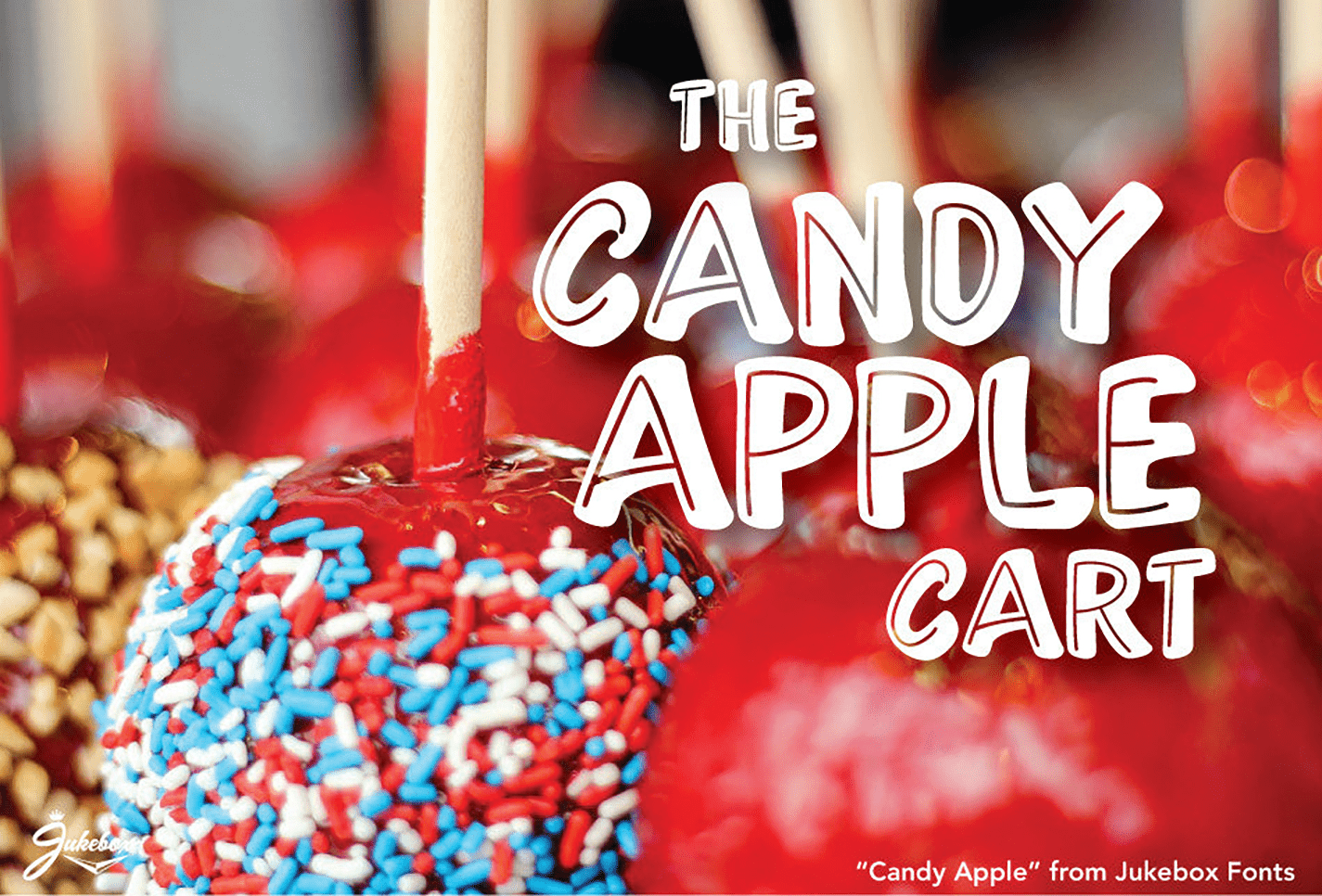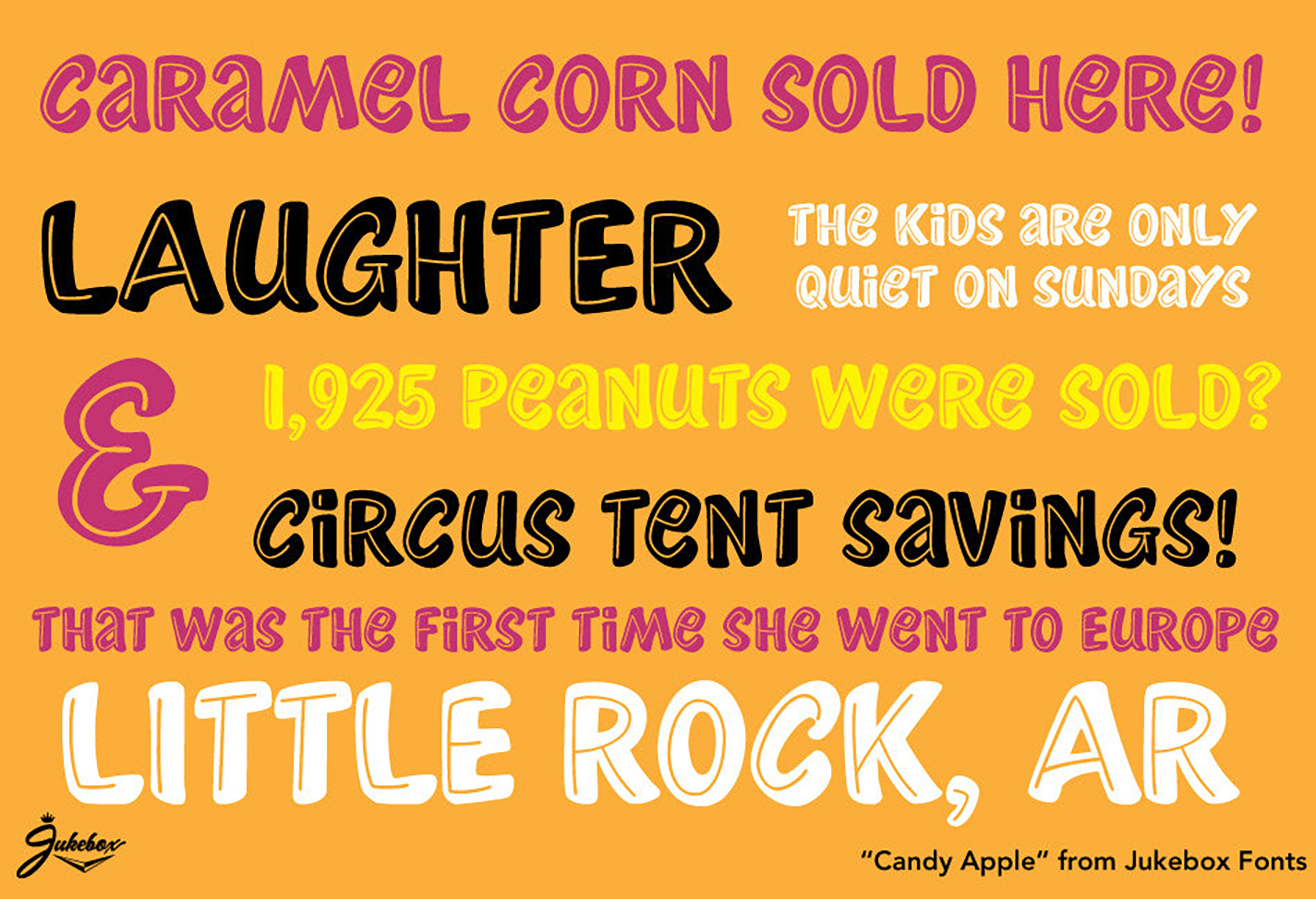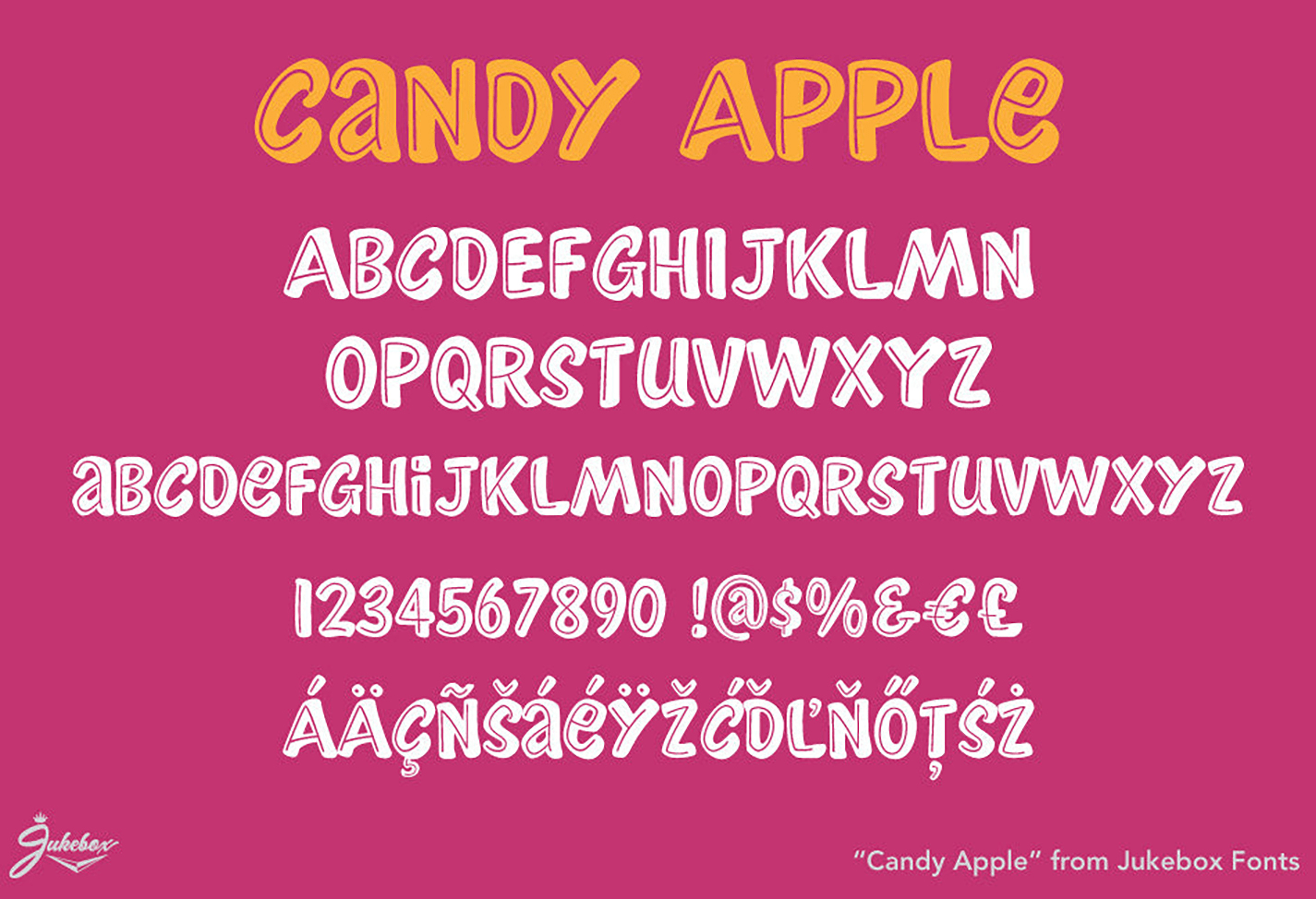
Candy Apple JF
Buy NowCandy Apple is a fun, carefree design with a cartoony feeling. Based on a hand lettered advertisement from the 1960s, it has a mid-20th century flair to it that suggests county fairs and family fun. Perfect for a variety of designs.